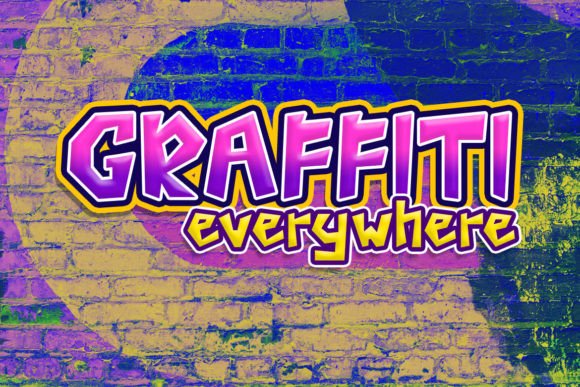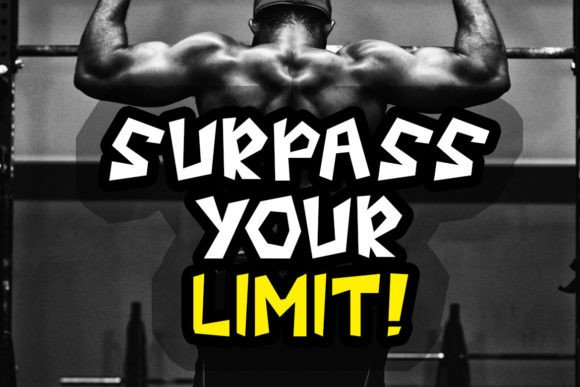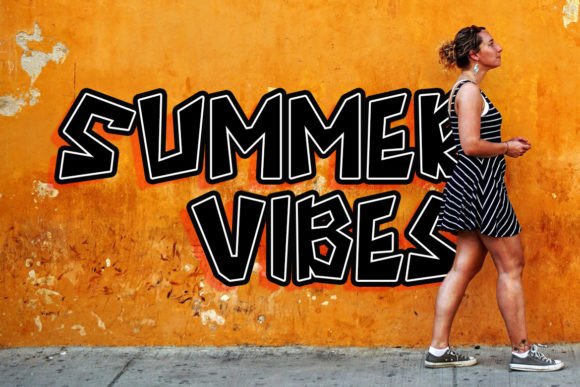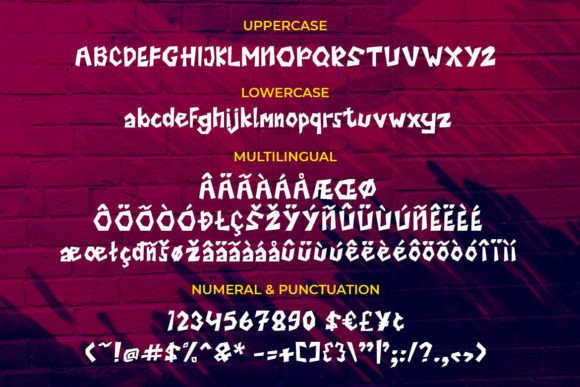
Introducing Grande Font: The Ultimate Modern Grafitti Display Typeface
In the world of typography, a good font can make all the difference in the success of a design project. For designers and crafters looking for a modern and cool Grafitti display typeface, Grande Font is an excellent choice. Created with great attention to detail, Grande Font is perfect for a wide range of applications, from apparel designs and product packaging to branding, blog posts, greeting cards, posters, wall art, and more.
What Makes Grande Font Stand Out?
Grande Font is a carefully crafted typeface that boasts a unique blend of style and sophistication. Its modern Grafitti design gives it a fresh and edgy look that’s sure to grab attention. The font’s creator has paid close attention to detail, ensuring that every letter and character is meticulously designed to provide a seamless and visually appealing experience.
Key Features of Grande Font
- Modern Grafitti Design: Grande Font features a contemporary Grafitti style that’s perfect for designers looking for a fresh and trendy look.
- Attention to Detail: The font’s creator has carefully crafted each character to ensure a high level of detail and precision.
- Versatile: Grande Font is suitable for a wide range of applications, from apparel designs and product packaging to branding, blog posts, and more.
- Easily Readable: Despite its bold and edgy design, Grande Font remains easily readable, making it perfect for use in various contexts.
Use Cases for Grande Font
Grande Font’s versatility makes it an excellent choice for various design projects. Here are some use cases where Grande Font can shine:
- Apparel Designs: Add a stylish touch to your t-shirt, hoodie, or hat designs with Grande Font.
- Product Packaging: Elevate your product packaging with a modern and eye-catching label design.
- Branding: Create a strong brand identity with Grande Font, perfect for logos, business cards, and more.
- Blog Posts: Add a touch of personality to your blog posts with Grande Font, ideal for headings and titles.
- Greeting Cards: Create unique and stylish greeting cards for special occasions.
- Posters and Wall Art: Use Grande Font to create striking posters and wall art that grab attention.
Why Designers and Crafters Love Grande Font
Grande Font has quickly become a favorite among designers and crafters due to its unique combination of style, versatility, and attention to detail. Here are some reasons why:
- Unique Style: Grande Font offers a fresh and modern take on the Grafitti style, setting it apart from other typefaces.
- Ease of Use: The font is easy to read and works well in various contexts, making it a practical choice for designers.
- Customization: Grande Font can be easily customized to fit your design needs, allowing you to experiment with different colors, textures, and more.
Grande Font is an exceptional modern Grafitti display typeface that’s perfect for designers and crafters looking to add a touch of style and sophistication to their projects. With its attention to detail, versatility, and unique blend of style and elegance, Grande Font is sure to become a staple in your design toolkit. Whether you’re working on apparel designs, product packaging, branding, or more, Grande Font is an excellent choice that’s sure to impress.